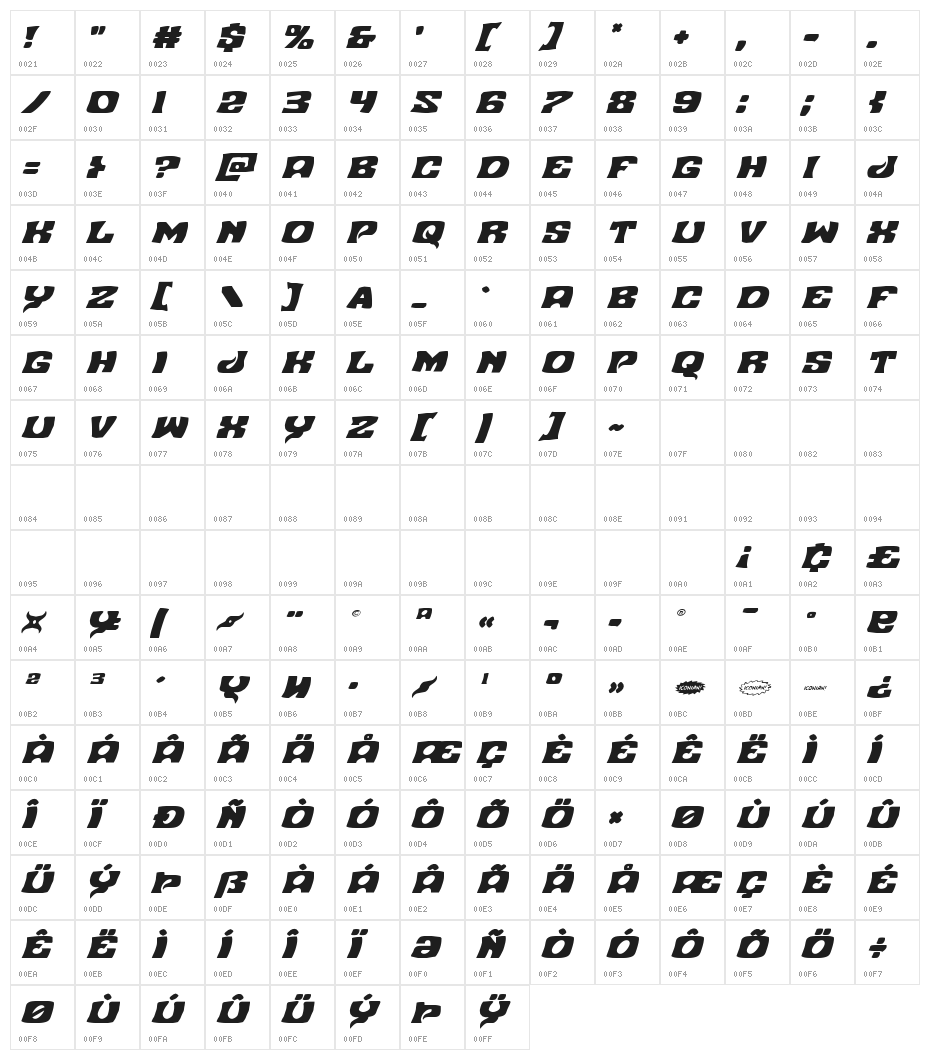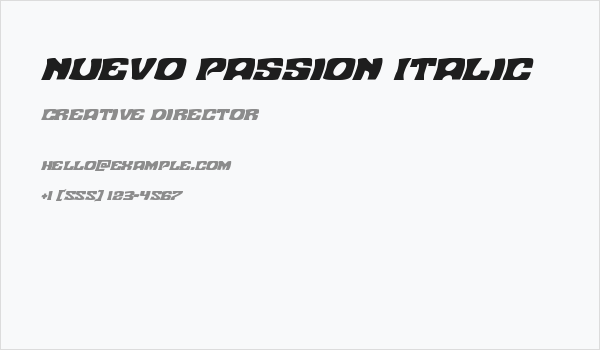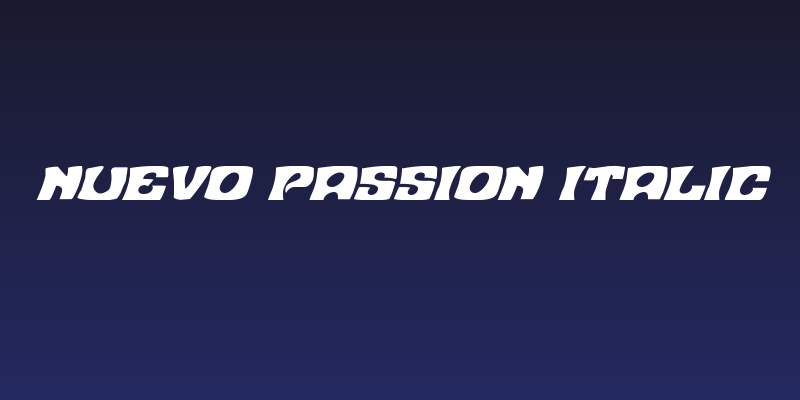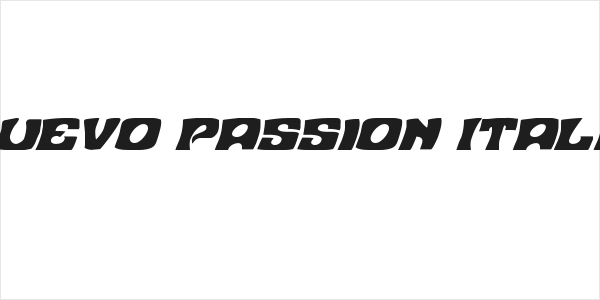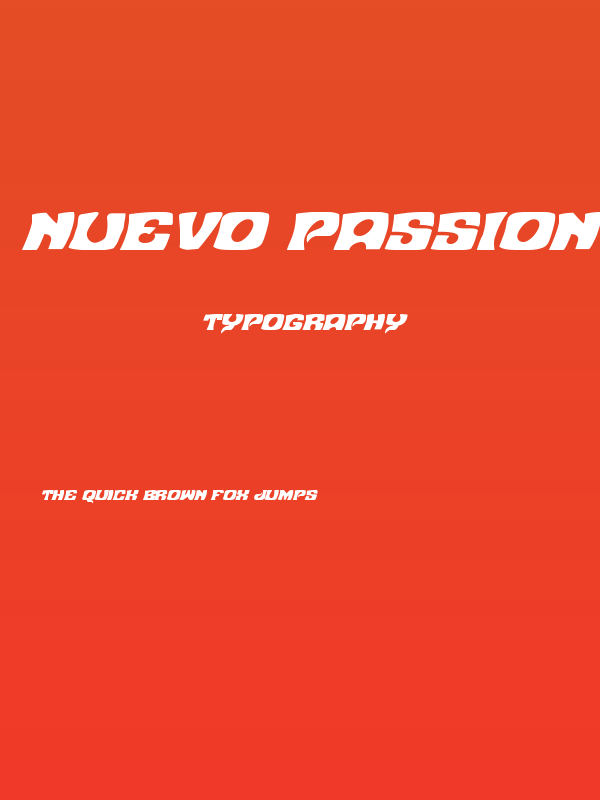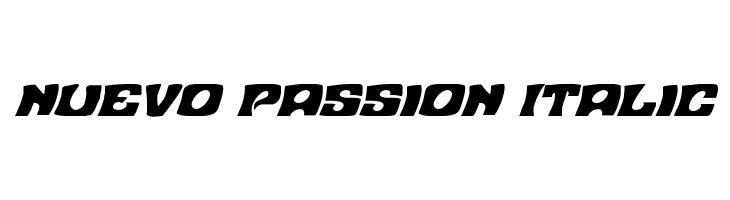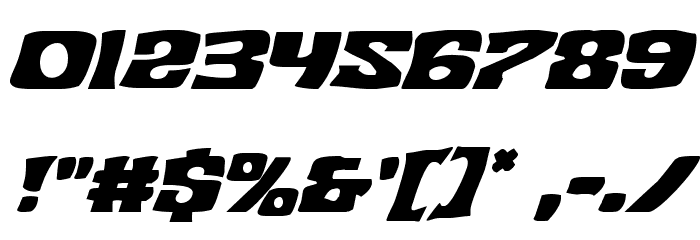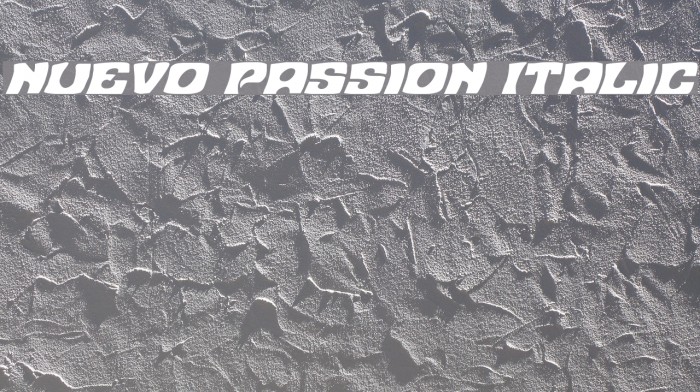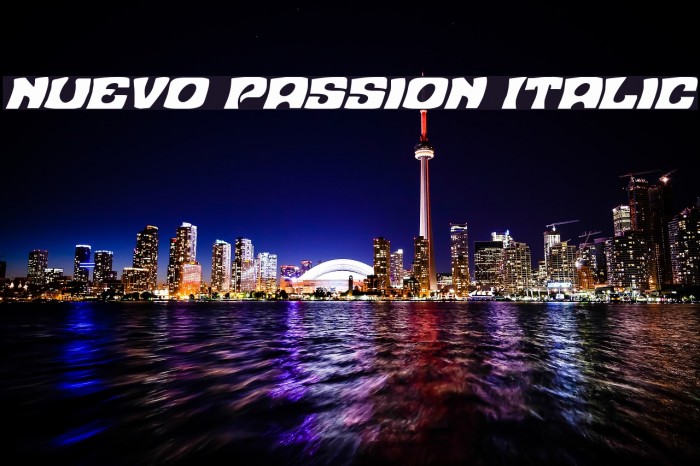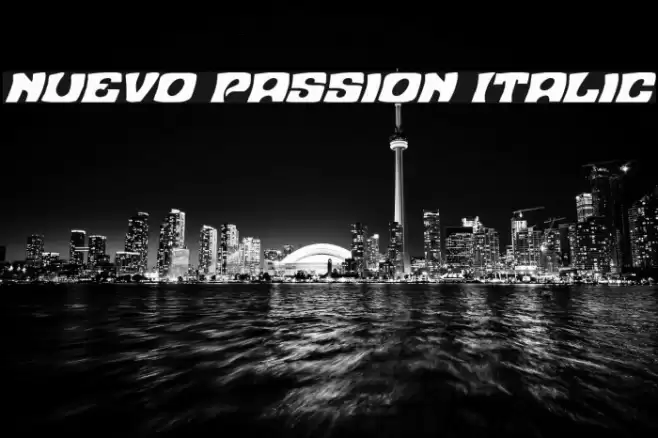
Nuevo Passion Italic Font
Nuevo Passion Italic Description
This font features a bold and dynamic style with a distinct italic slant, giving it a sense of movement and energy. The characters are thick and robust, with sharp edges and a slightly condensed form. The uppercase letters are particularly striking, with unique angles and curves that add to the font's overall impact. The lowercase letters maintain the same boldness, ensuring consistency throughout. Numbers and special characters are equally bold, making them stand out effectively. This font is designed to capture attention and convey a strong, confident message.
| Proposed Projects | Ideal for sports branding, dynamic posters, and eye-catching headlines. |